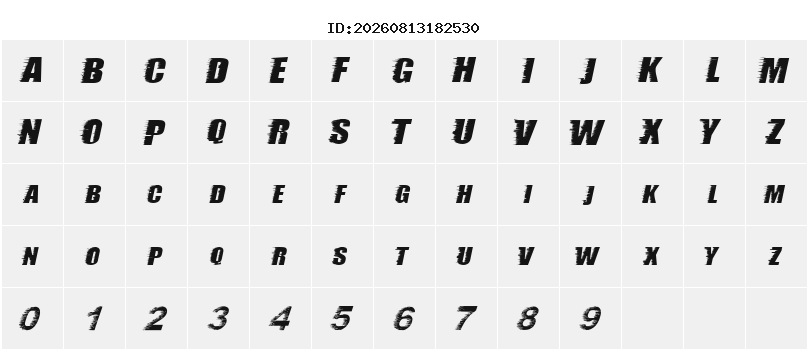
storm Preview
• Font Name: storm
• Font Style: ExtraBold
• Font ID: storm ExtraBold
• Full Font Name: storm ExtraBold
• Version: Macromedia Fontographer 4.1 01.09.98
• PostScript Name: StormExtraBold
• Copyright: designed by Dieter Schumacher ©1998
About storm.ttf
storm.ttf is a modern, elegant sans-serif font designed for ultimate readability and visual harmony. Perfect for branding, headlines, web design, and print materials.